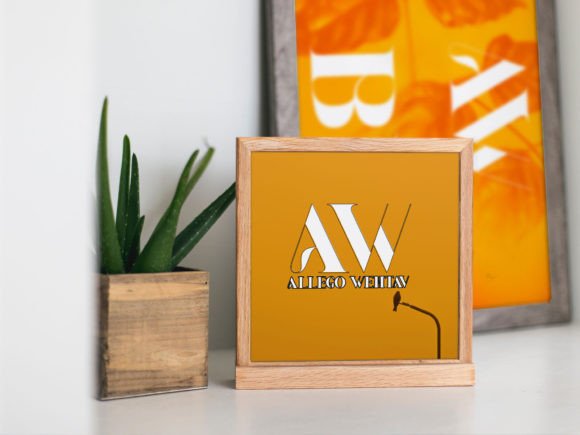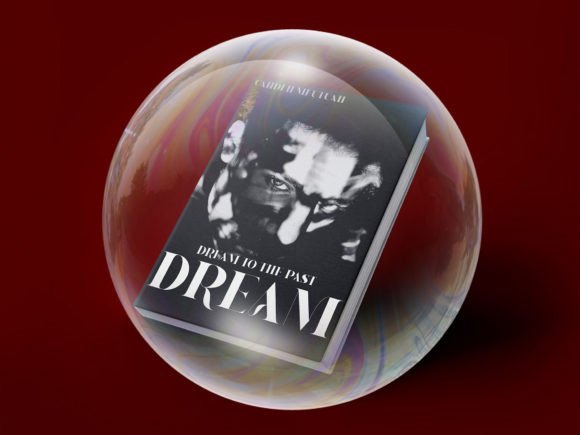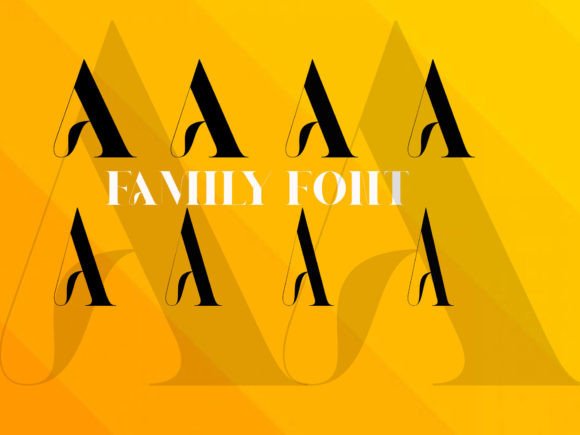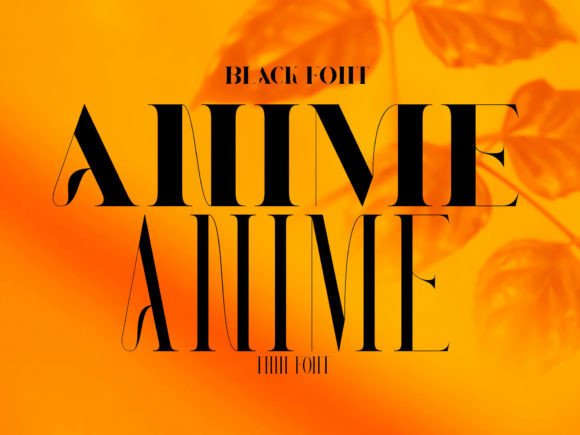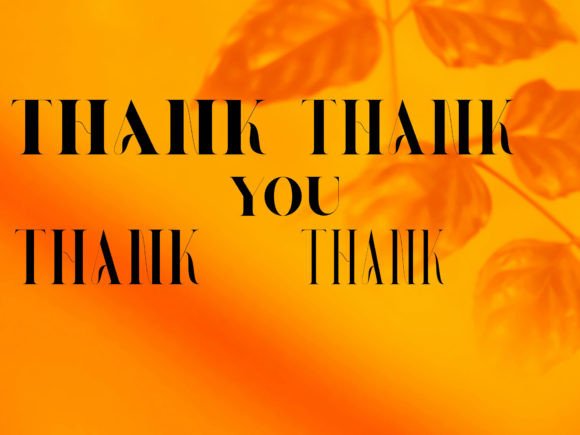
Introduction to Mawava Font
Have you ever stared at a blank page, trying to find the perfect font to match your creative vision? The blank canvas can be daunting, but sometimes, all it takes is one special font to bring your idea to life. For designers, discovering a high-quality design resource like the Mawava Font can be a game-changer.
Mawava Font is a stunning geometric family typeface available in nine thicknesses, offering endless possibilities for your next creative project. Whether you’re working on a logo, title, or brand identity, this elegant modern font family is sure to make a lasting impression. With its clean lines and versatile design, Mawava Font is perfect for designers looking for a reliable and stylish solution.
Key Features of Mawava Font
- Offers a large character set, including a wide range of languages and symbols, making it suitable for diverse creative projects.
Honest Review: Mawava Font
As a designer, I’m always on the lookout for high-quality design resources to enhance my creative projects. The Mawava Font caught my attention, and I’m excited to share my honest review.
- ✨ Unique and elegant design aesthetic, perfect for projects that require a touch of sophistication.
- ⚠️ Limited character set, which may not be suitable for projects that require a wide range of characters.
- ⚠️ Not ideal for projects that require bold or condensed font styles, as it’s designed for more elegant and refined applications.
Overall, the Mawava Font is a solid choice for designers who want a high-quality, elegant font for their creative projects. While it may have some limitations, its unique design aesthetic and high-quality files make it a great addition to any design resource library.
Getting the Most Out of Mawava Font
To get the most out of the Mawava Font, use it in combination with other design resources, such as graphics and images. Experiment with different font sizes, colors, and styles to create a unique and eye-catching design.
The Mawava Font is ideal for a variety of creative projects, including logos, brochures, and social media graphics. It’s also perfect for creating visually appealing text overlays for videos and presentations.